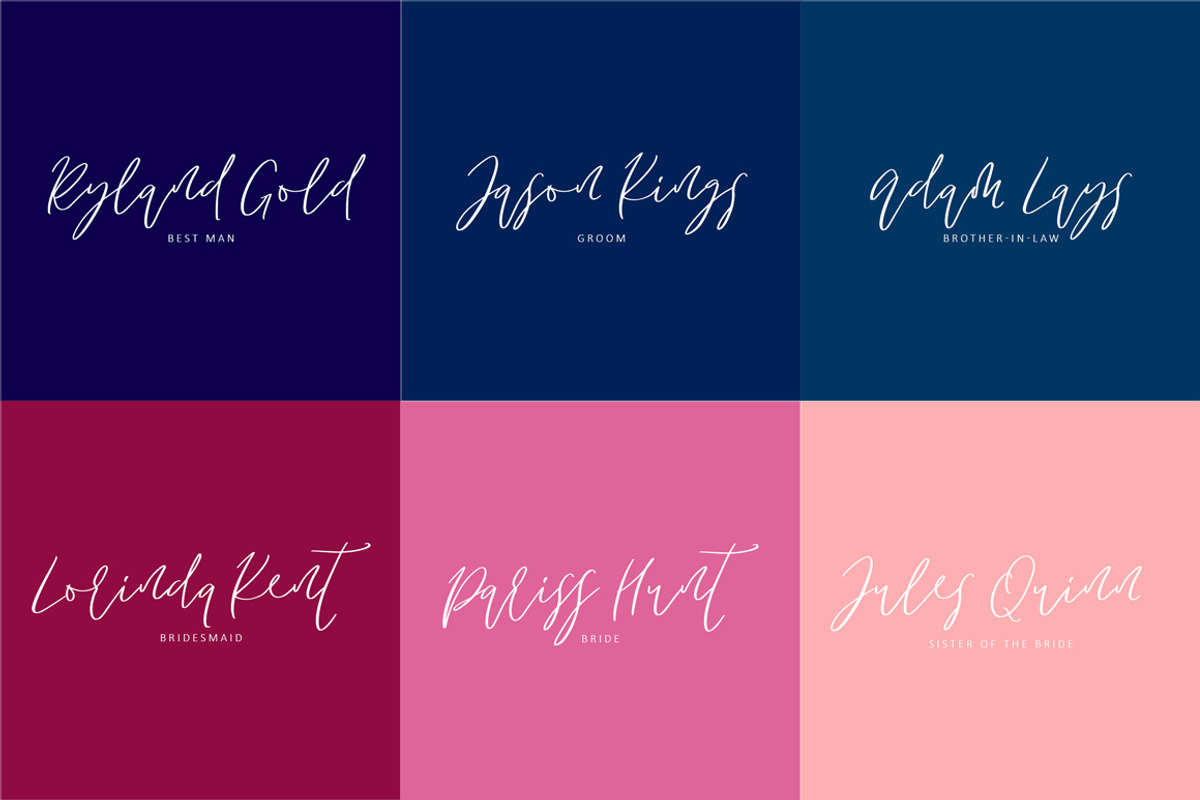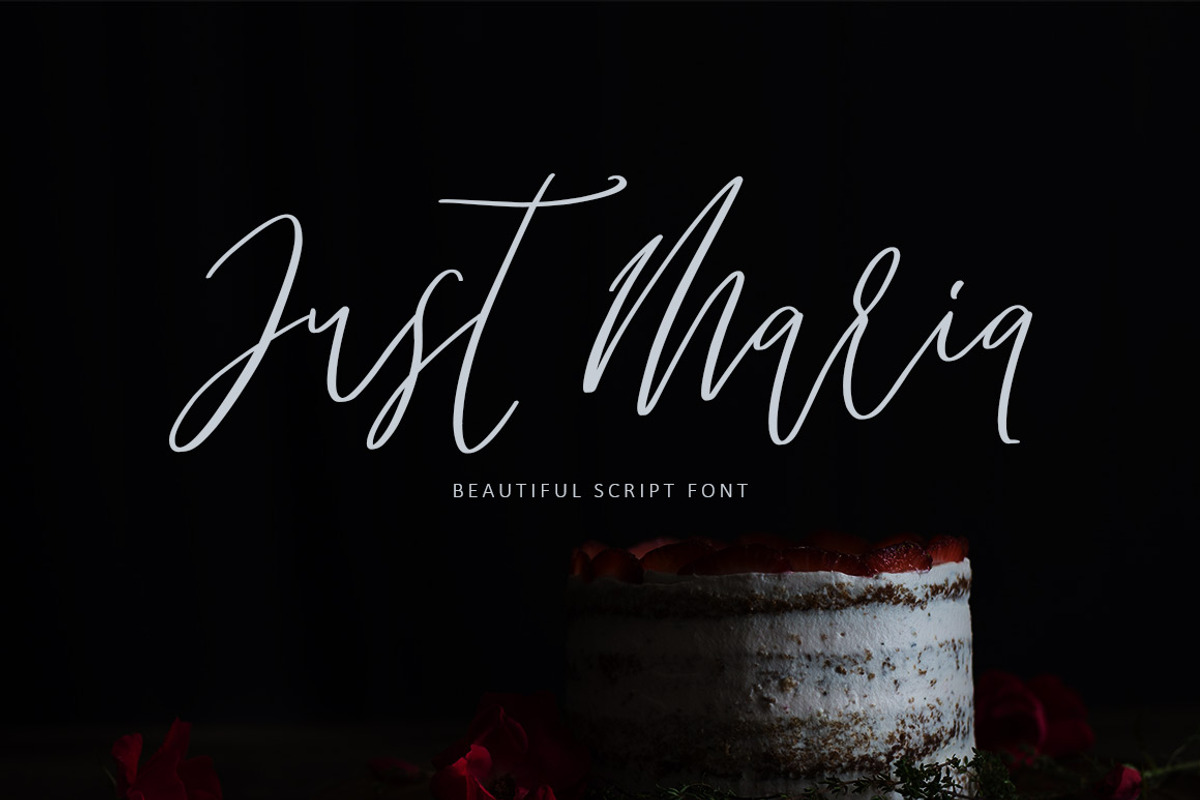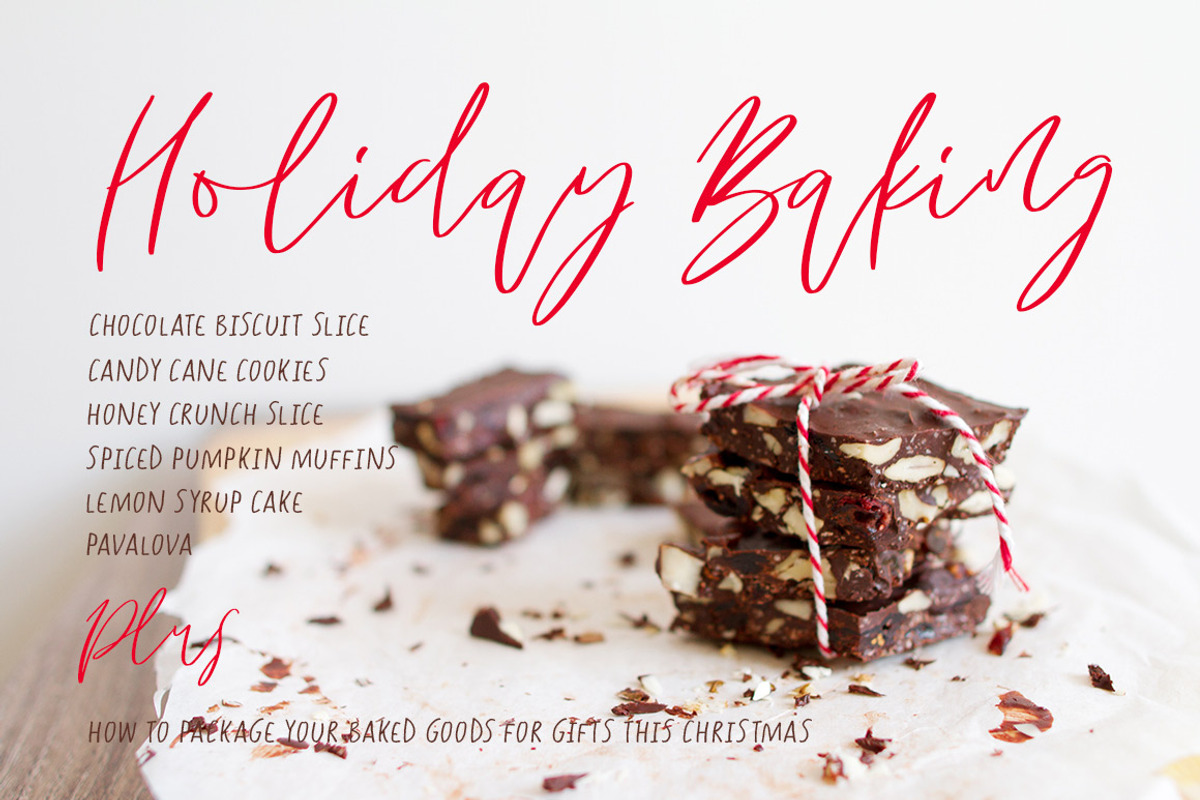
Just Maria Script Font
Introducing Just Maria Script Font
This is a beautiful hand written script with so much character and charm.
Why Just Maria Script Font is worth a look
Just Maria Script Font by Creativeqube Design fits naturally into Branding, posters, packaging, typography.